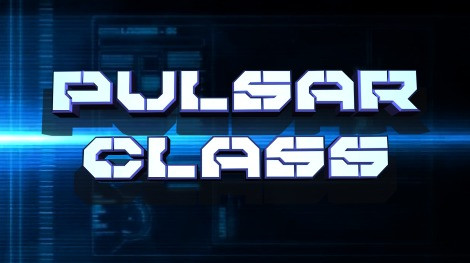
Pulsar Class Font
Pulsar Class Font, This bundle features strong, confident and powerful typefaces designed to work great with sports logos, club branding, apparel applications, labels and more.